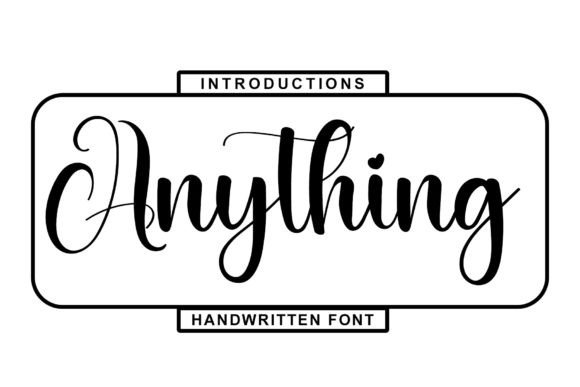
The Anything Font: A Designer’s Dream Come True
I’ll never forget the design project that led me to discover the Anything Font. I was working on a branding campaign for a trendy new coffee shop, and my client asked for a font that was both elegant and playful. I scoured the internet, tried out dozens of fonts, but nothing seemed quite right. That was until I stumbled upon the Anything Font. With its incredible versatility and adaptability, it was like the design gods had finally answered my prayers! ✨
• ✨ Endless possibilities: The Anything Font comes in a wide range of letterforms and styles, making it perfect for any design project.
• ✅ Highly legible: Despite its versatility, the font remains clear and easy to read, even at small sizes.
• 🎨 Expressive: With OpenType features, glyphs, and stylistic alternates, you can add a personal touch to your designs.
While the Anything Font is incredibly powerful, there are a few minor limitations to be aware of: ⚠️
• 🤔 Some characters may require manual kerning for optimal results.
• ⚠️ The font’s extensive features can be overwhelming for beginners.
The Designer Inspiration Behind the Anything Font
The Anything Font was created by a team of designers who wanted to push the boundaries of typography. Inspired by the versatility of handwritten fonts and the elegance of serif fonts, they set out to create a typeface that could adapt to any design project. The result is a font that’s both highly legible and endlessly expressive. **The designer’s goal was to create a font that would give designers the freedom to create anything they could imagine**. With the Anything Font, they’ve certainly achieved that goal! 🎉
Font Name Anything Font
Author YanStudio
What makes the Anything Font so versatile? The Anything Font’s versatility comes from its wide range of letterforms, styles, and OpenType features. This allows designers to use it for a variety of projects, from branding to editorial layouts.
Is the Anything Font suitable for body text? While the Anything Font is highly legible, it’s best suited for display text or headings. For body text, you may want to choose a font with a more traditional design.